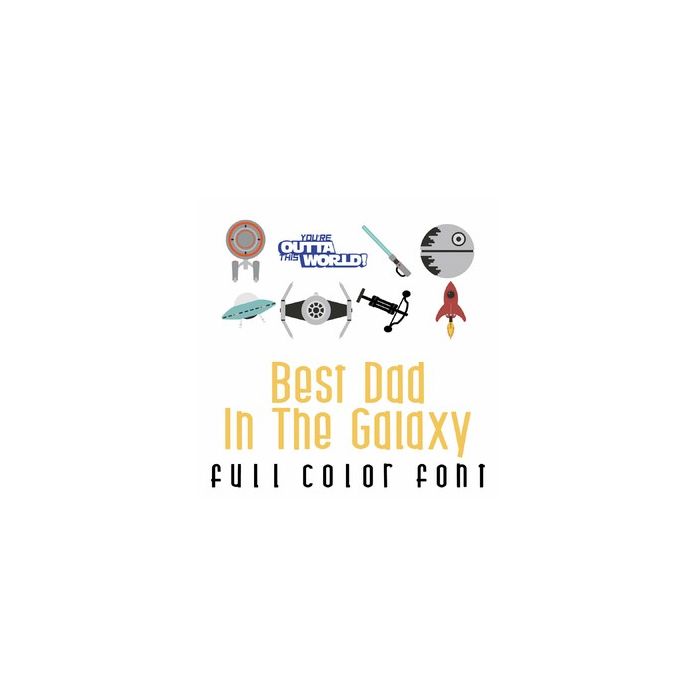
This adorable full-color doodlebat font features 26 intergalactic tpys and flying ships as well as puns. Perfect for cards, crafts, gifts, decor, scrapbook pages, planner stickers, and more!